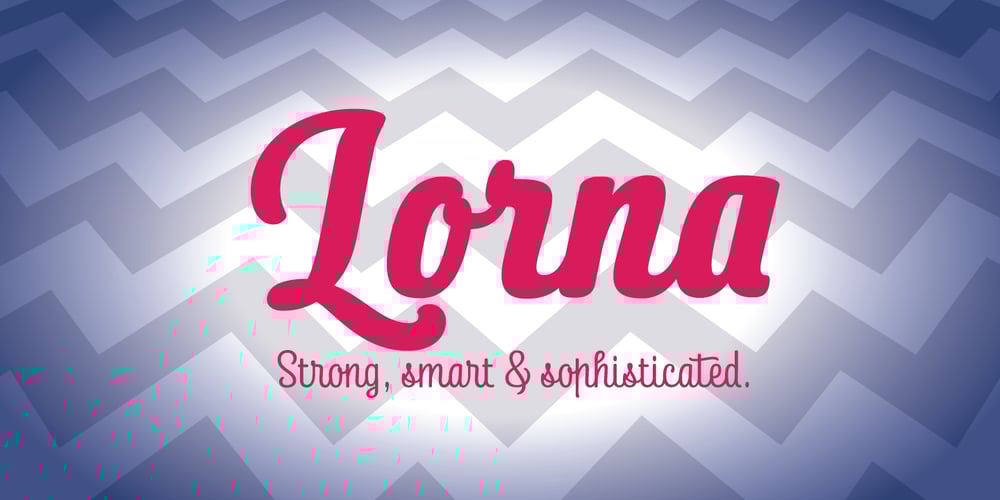
Lorna
Lorna font
Lorna Font Family was designed by Zakhar Yaschin and published by FontaZY. Lorna contains 6 styles and family package options. Lorna by Fontazy is a rounded connected script of narrow proportion in both vertical and slanted styles. Lorna consist of six fonts (Light, Regular and Bold and matching italics). All fonts in the family have Latin (West, Central and Baltic) and Cyrillic encoding for multilingual support. Lorna has Contextual Alternates to keep a true connected handwriting look and plenty of Swashes Alternates and a bunch of Ligatures for striking appearance. Ampersand and copyright symbols have Stylistic variants (available from Glyph panel), figures made in Standard and Oldstyle variants. Lorna is perfect for all variety of print design, advertising, packaging, logo making, branding etc.